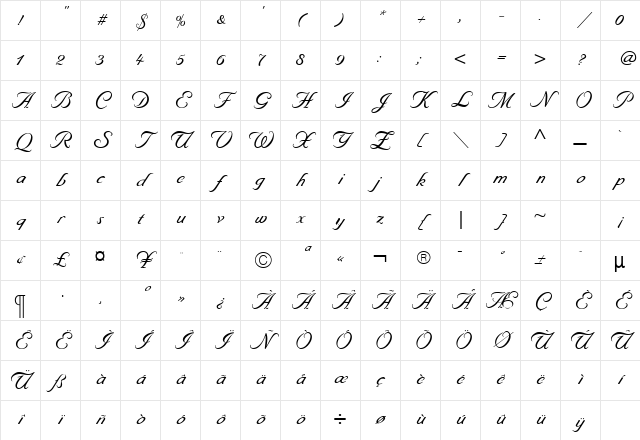
ByronMedium Roman
Design Context for ByronMedium
ByronMedium is a composed and adaptable typeface that performs quietly and consistently across a wide range of design contexts.